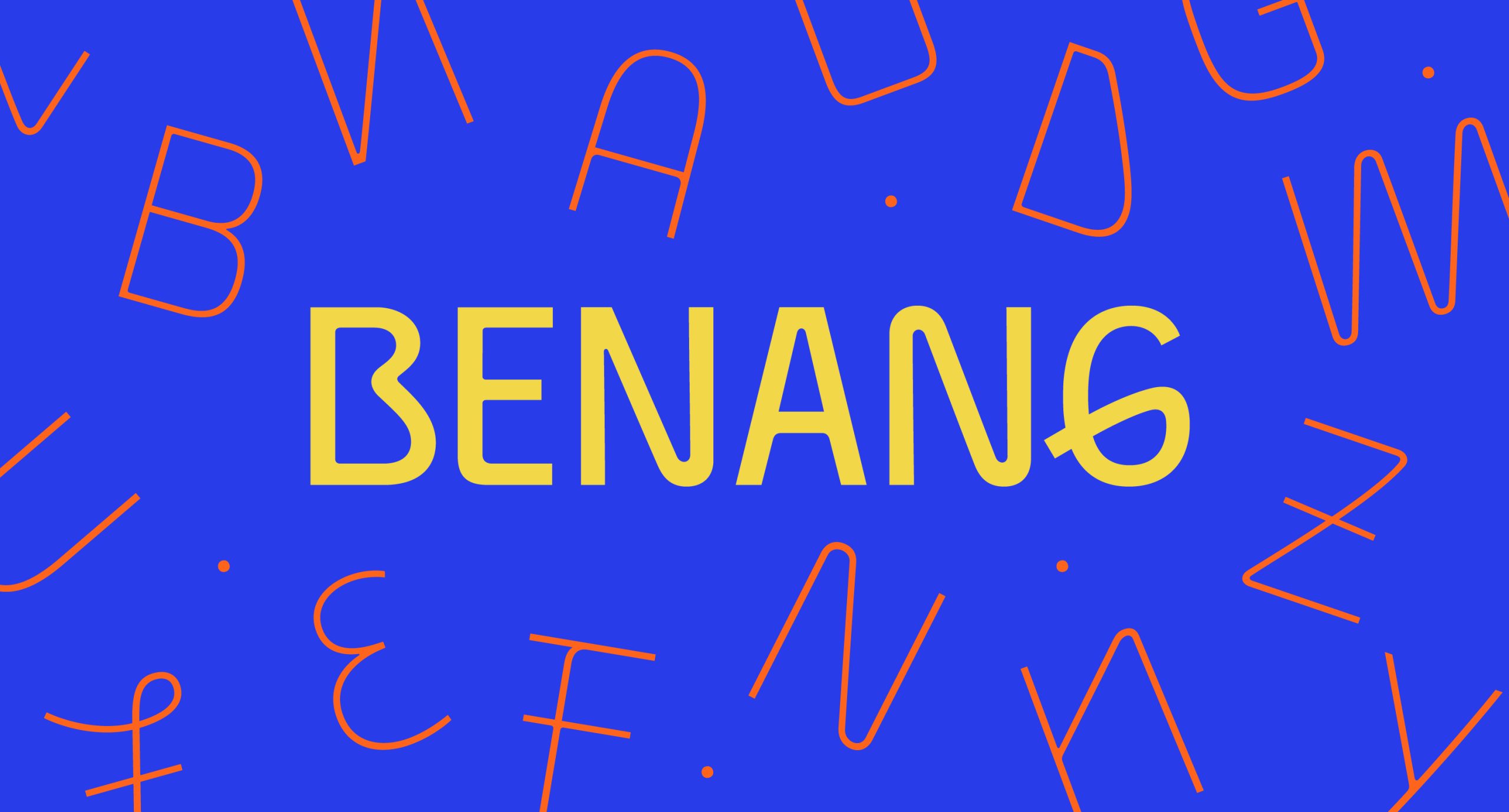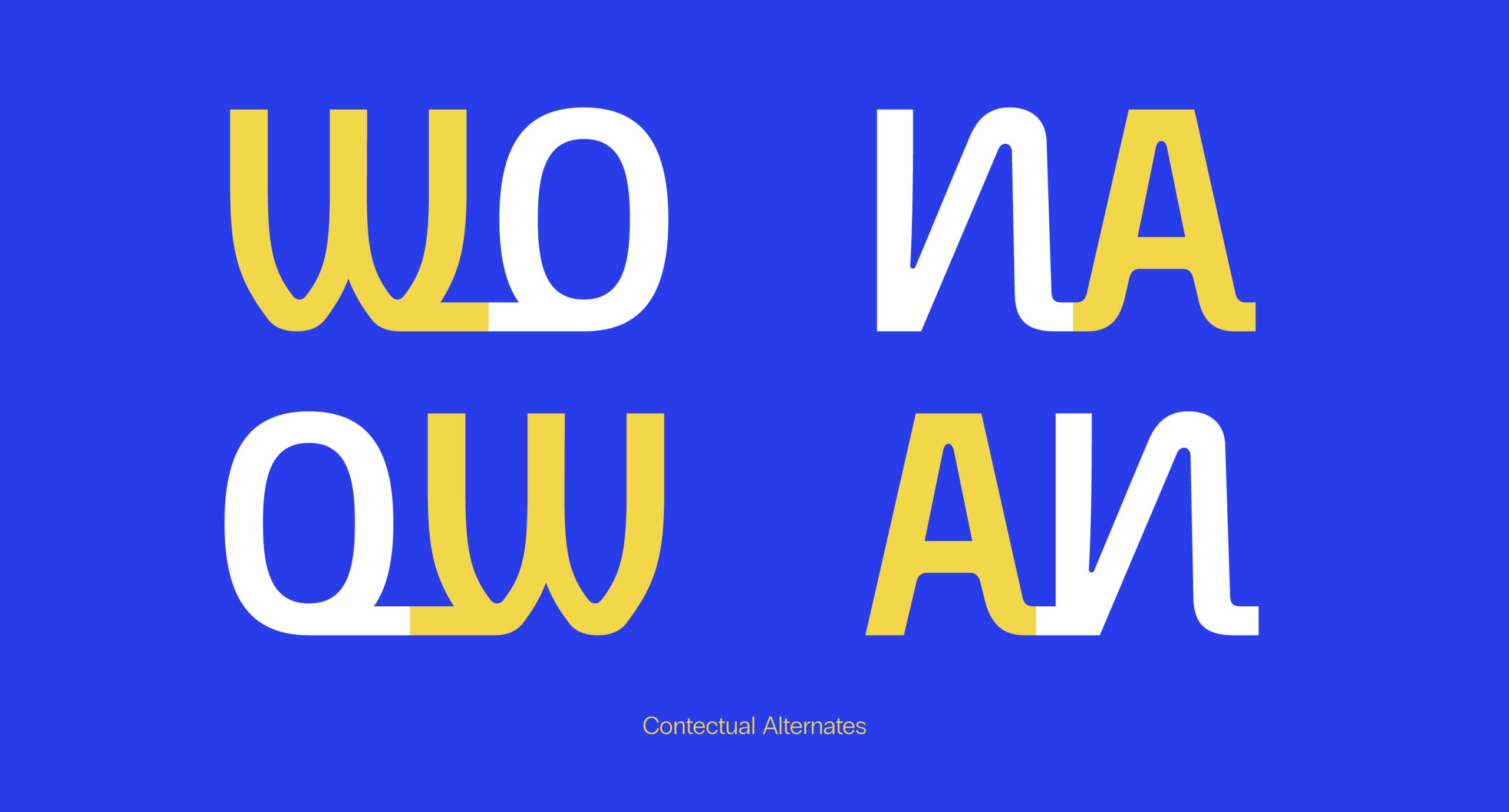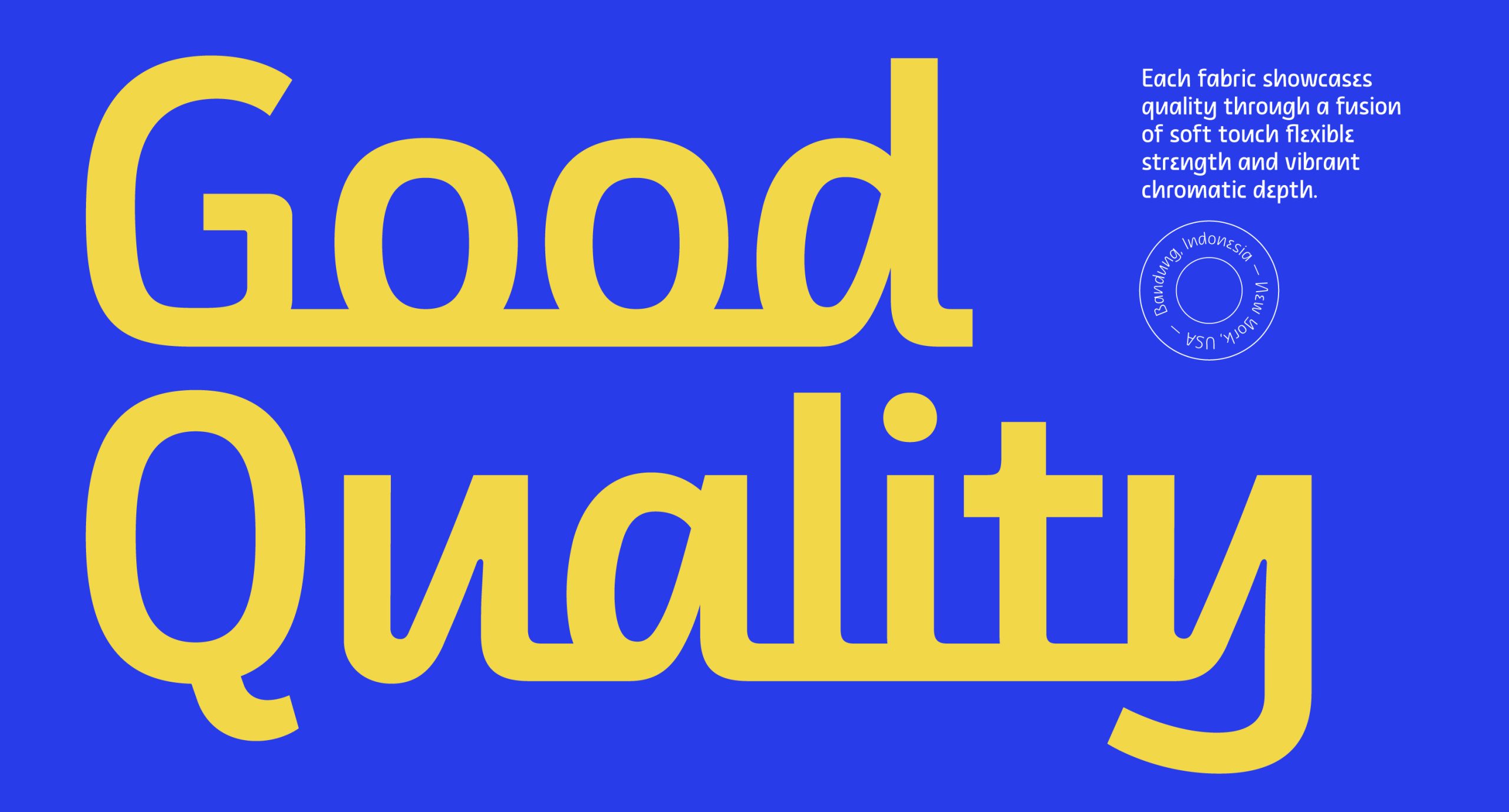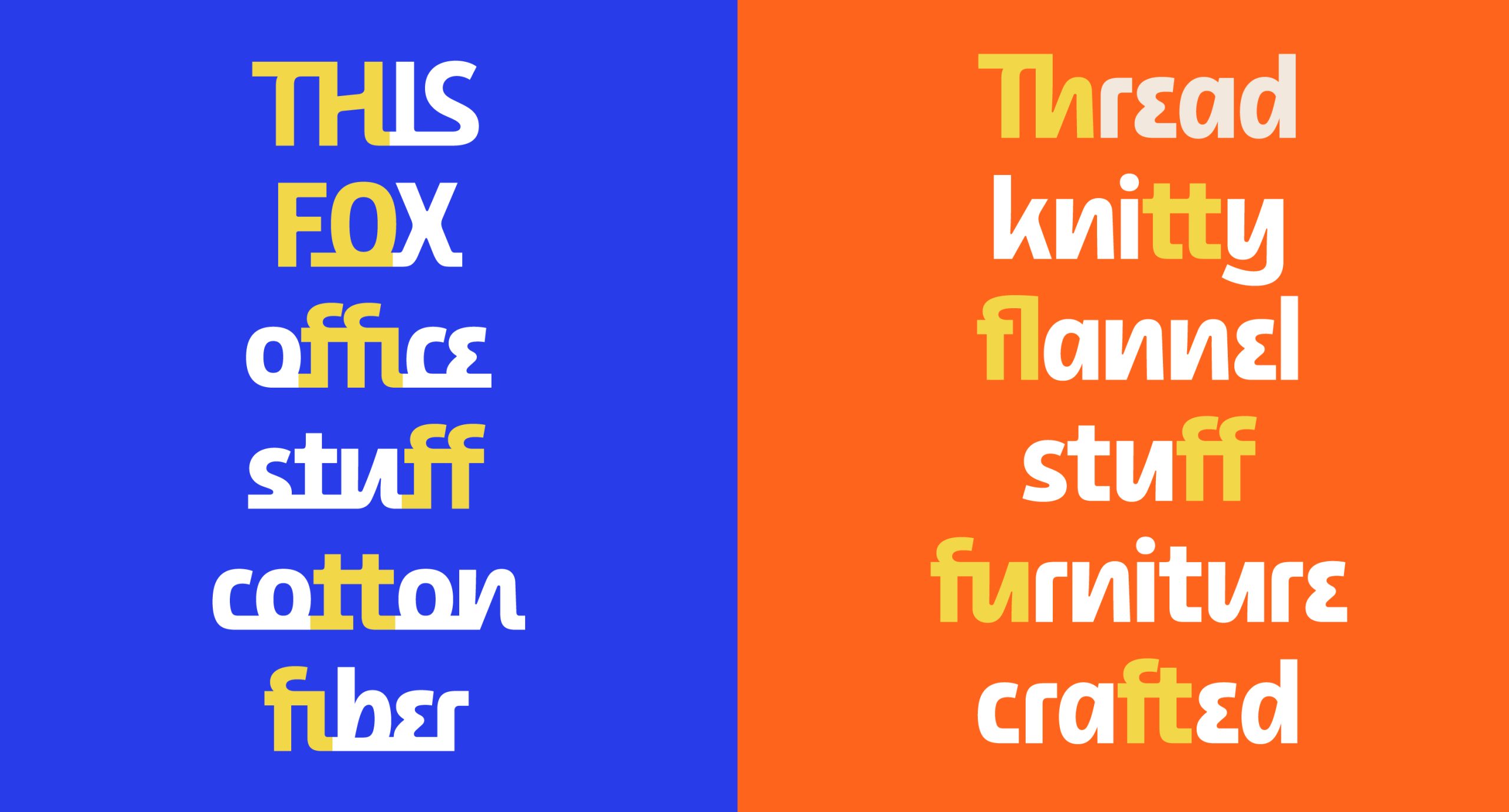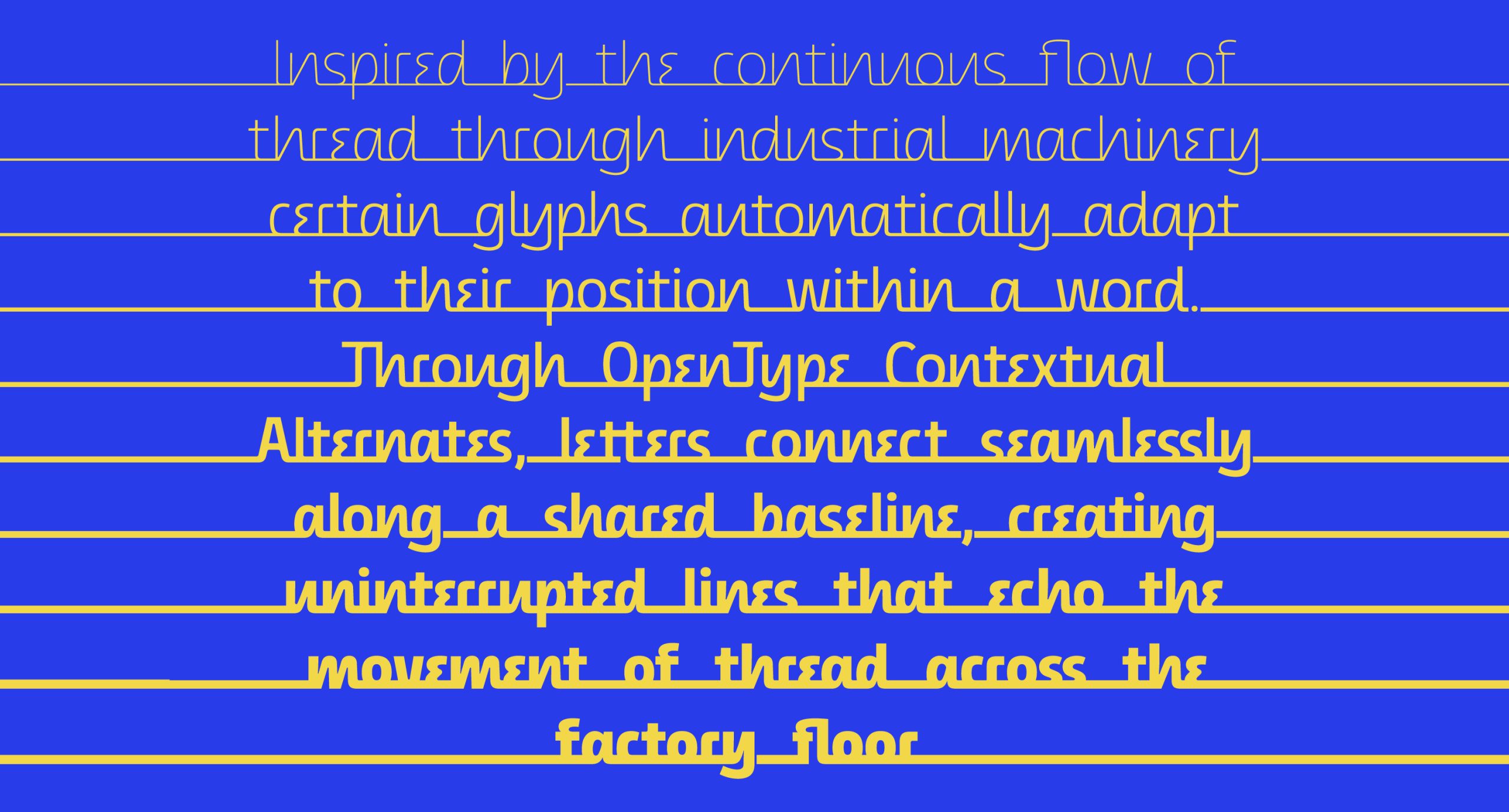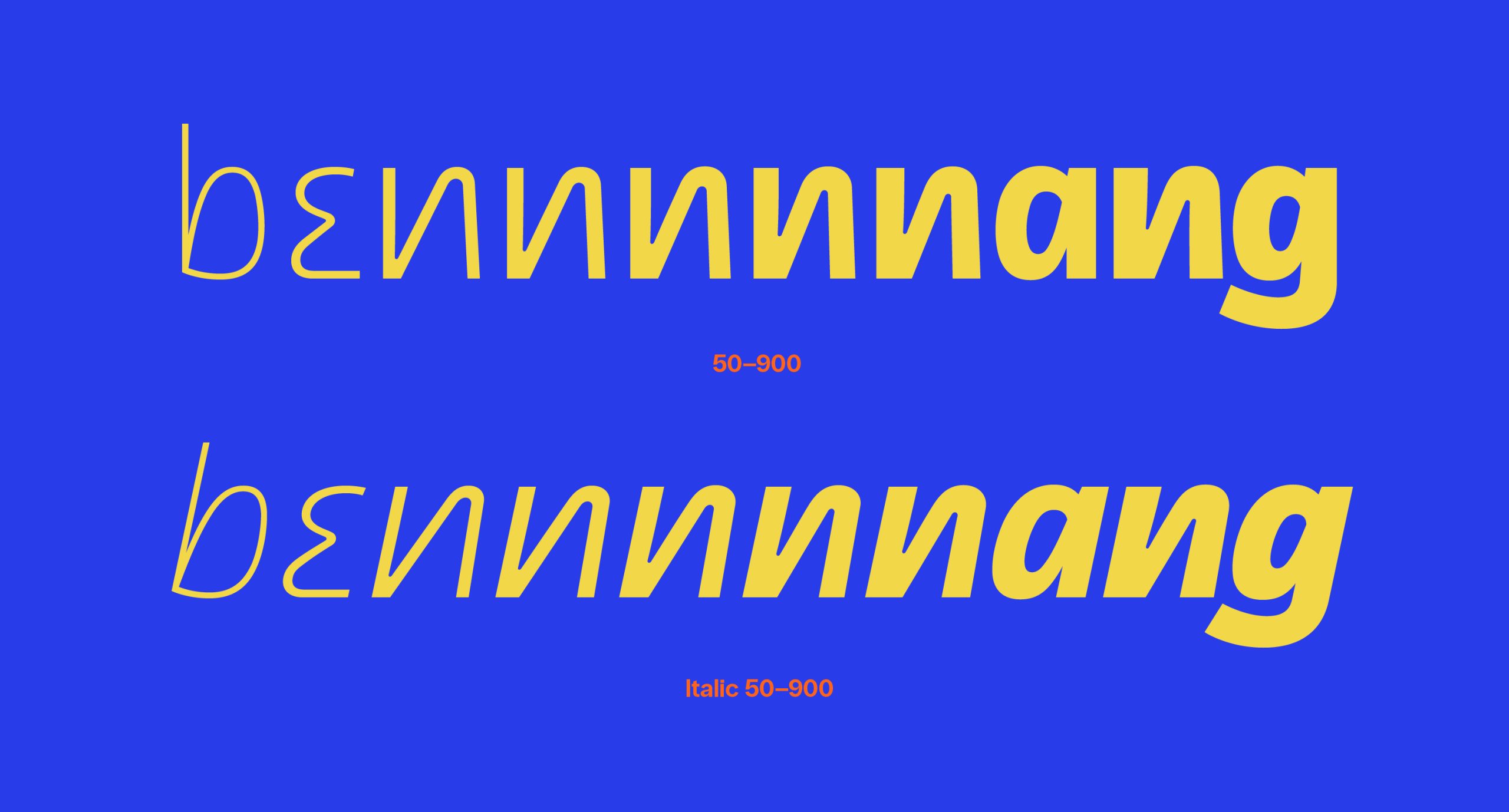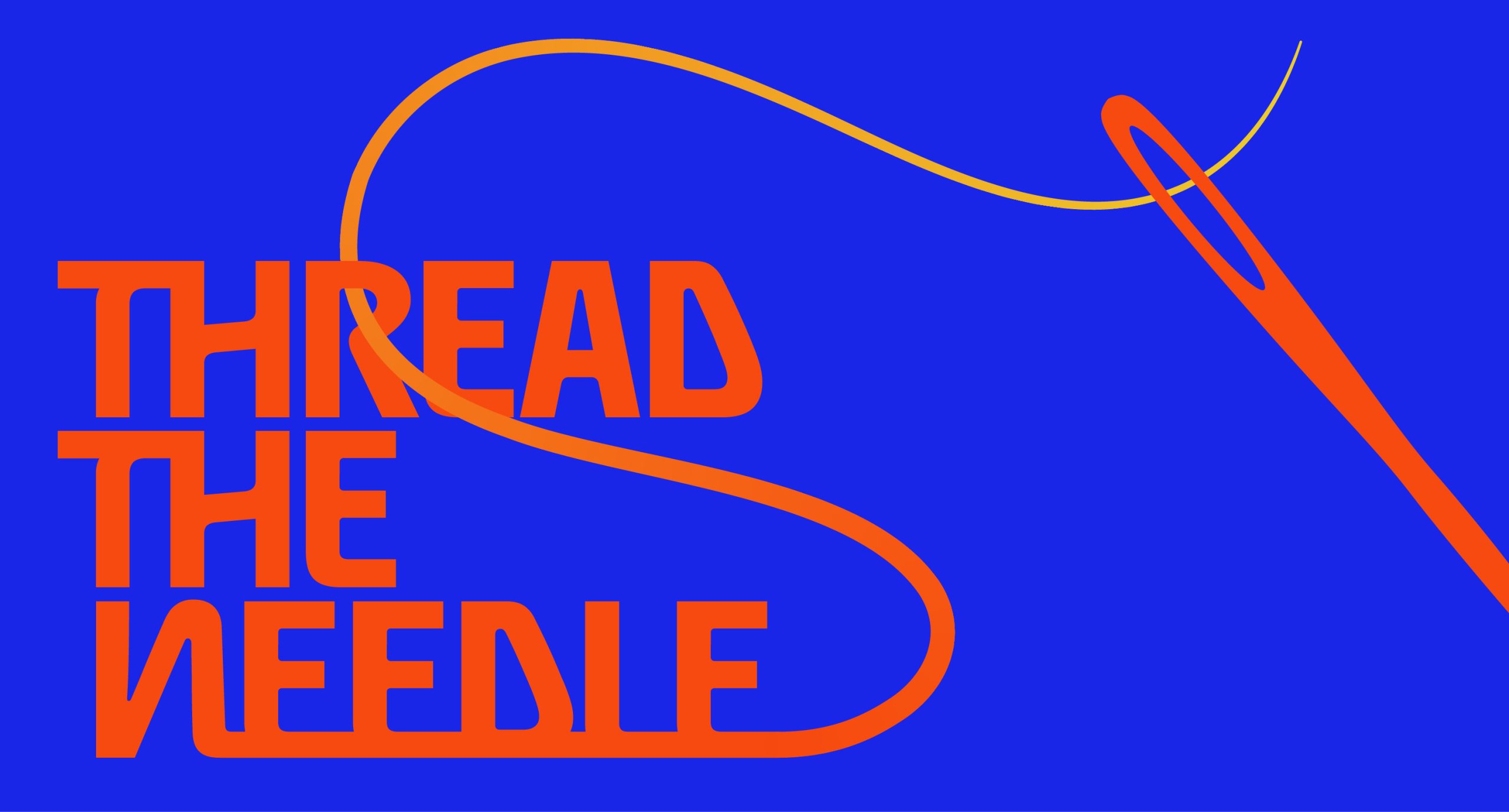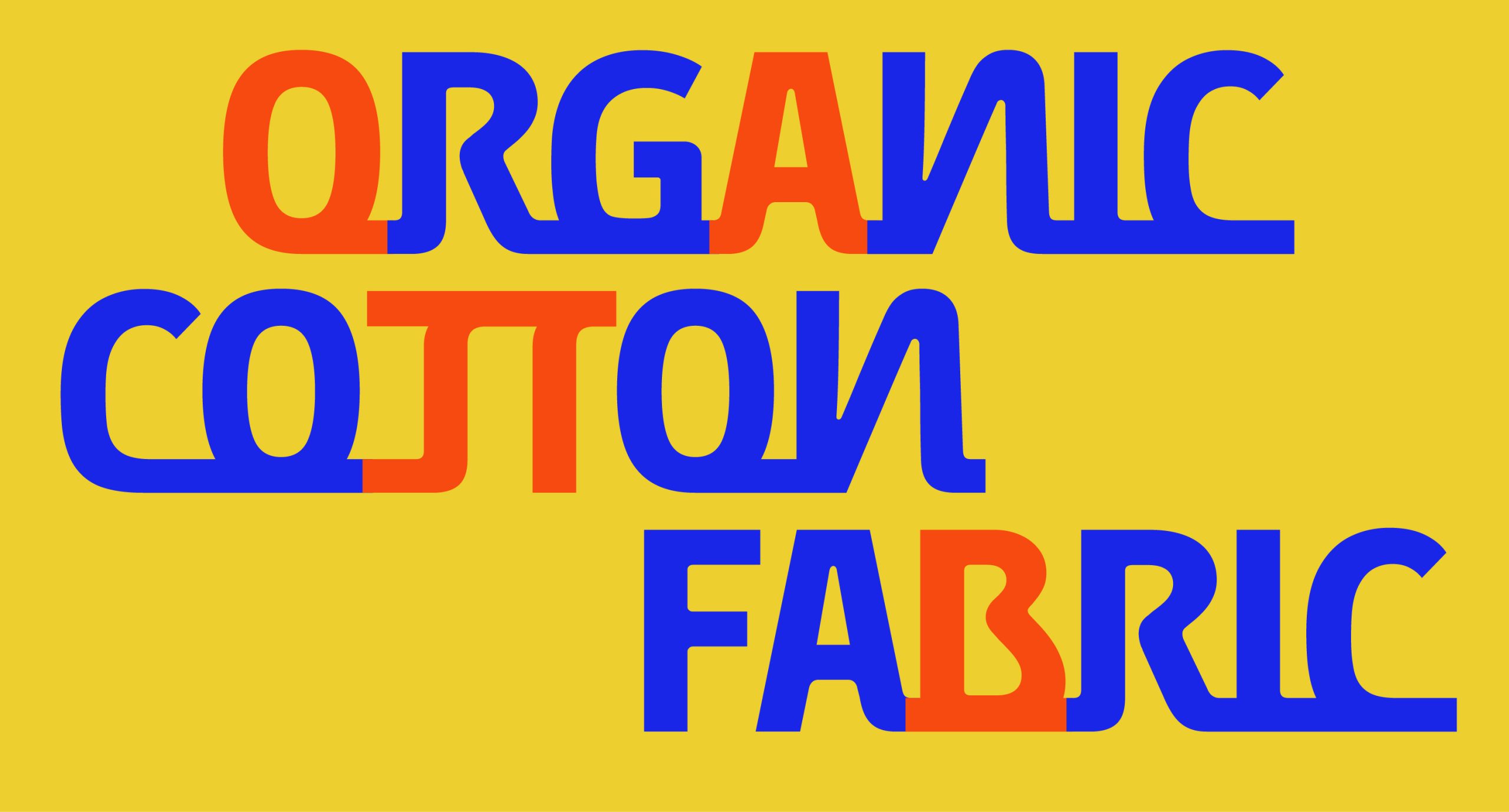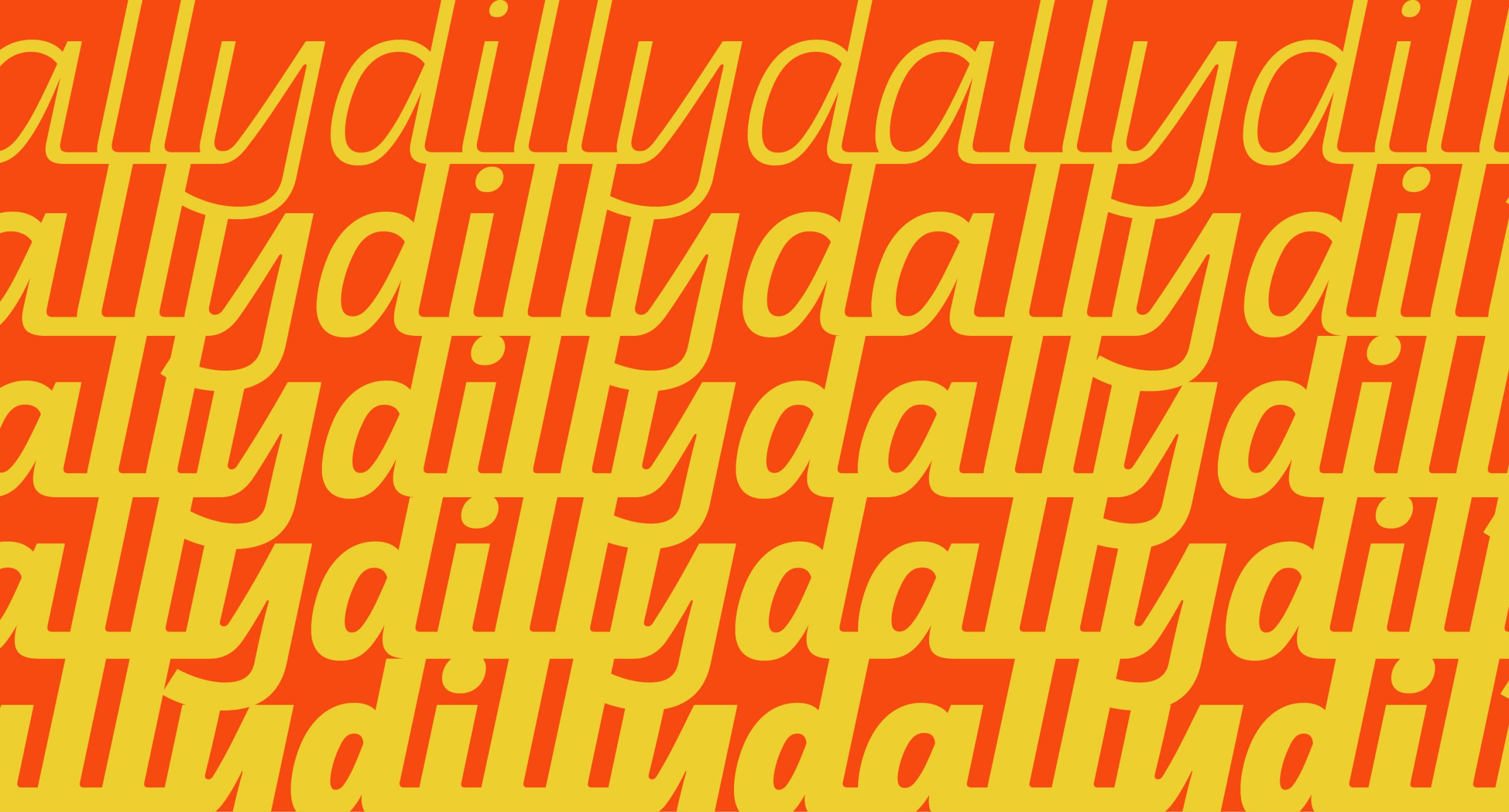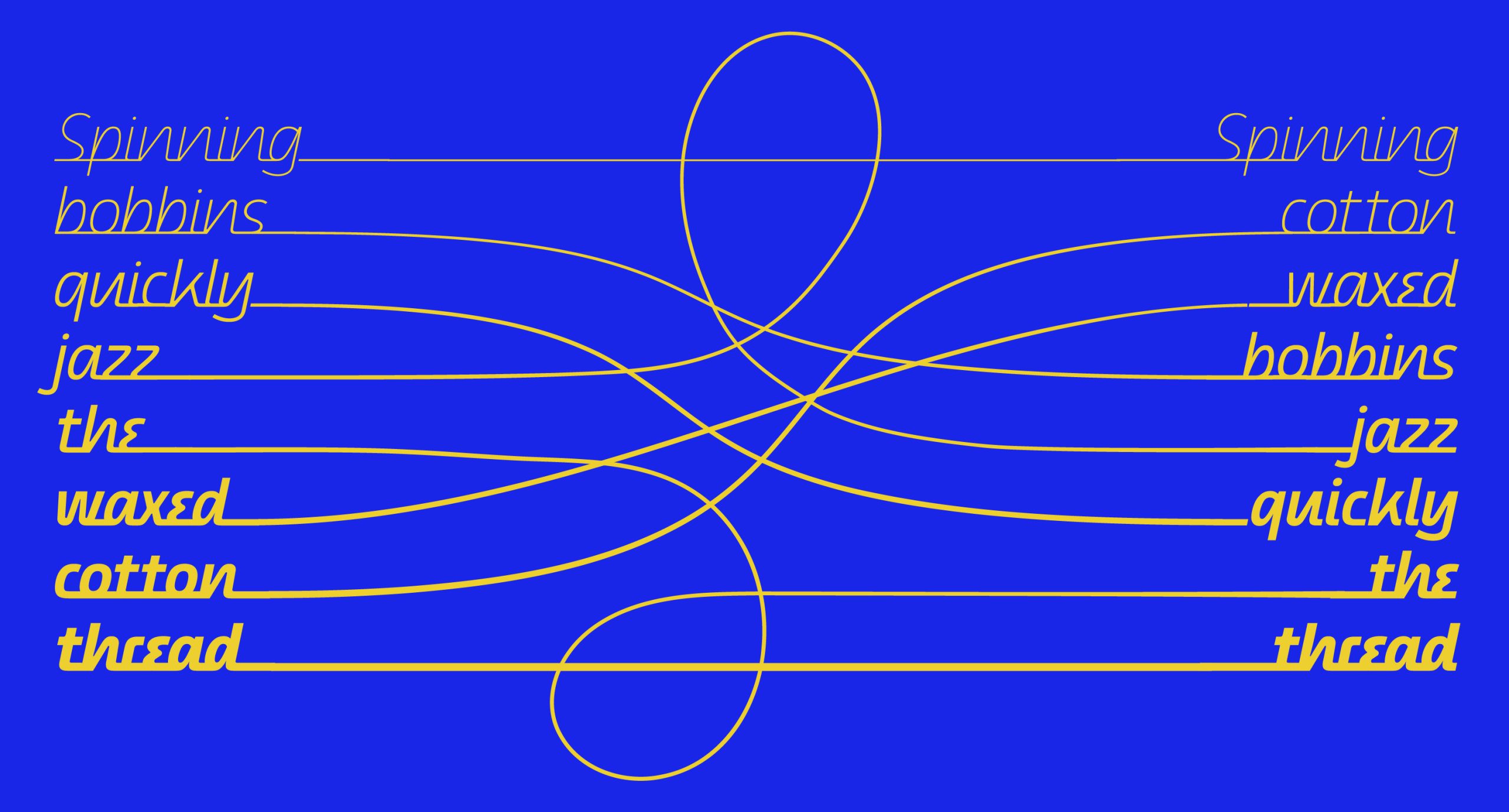
Benang
Benang is a typeface developed from handwritten notes found in the administrative office of an old thread factory in Bandung. The design responds directly to this everyday writing practice. The letterforms are shaped by quick annotations, repeated instructions, and practical marks made by generations of administrators. These writings were tools for organizing work, not aesthetic expressions. We translated their rhythm, proportions, and movement into a clear typographic system.
The name Benang means thread in Indonesian. Thread is a continuous strand used to bind fibers together and make fabric possible. It is flexible, able to bend and adjust without losing strength. This quality informs the structure of the typeface. The strokes carry a subtle sense of elasticity, reflecting the material behavior of thread itself. Benang connects handwriting and thread as parallel forms of labor. Both record process, time, and human presence. The typeface becomes a visual archive shaped by flexibility and sustained through routine work.